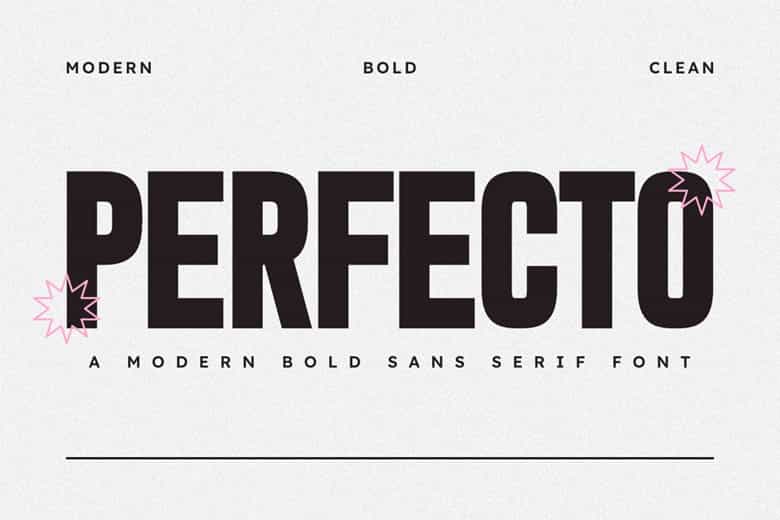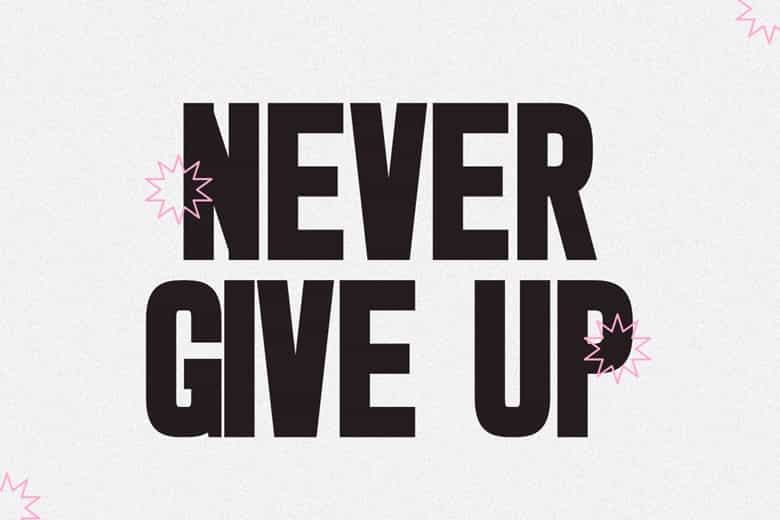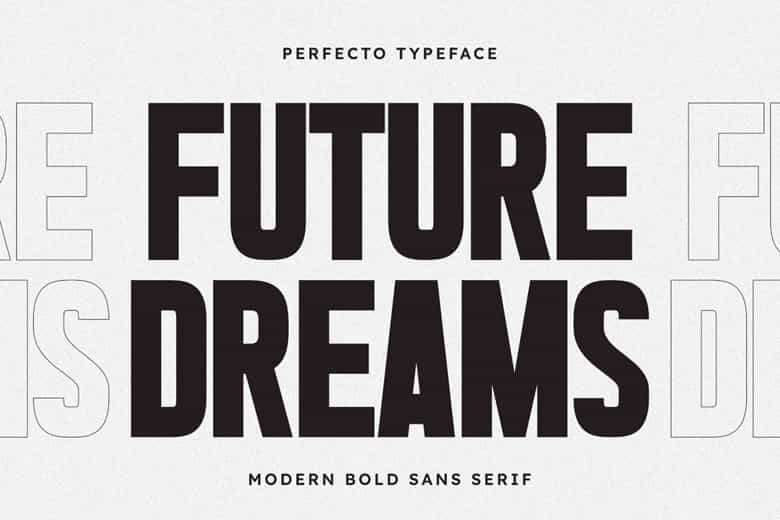
Perfecto Font
Perfecto is a bold modern sans serif typeface that is made to be clear, strong, and loud. And due to clean edges and its strong lines, it carries a professional touch to logos, product packaging, social media, display ads, and t-shirt designs. This font is created to attract attention to your text – it is ideal to be used in print-on-demand designs, branding projects, Cricut projects, and catchy headlines. Use Perfecto when you are designing minimalist packaging or bright merch of a modern and classic look.